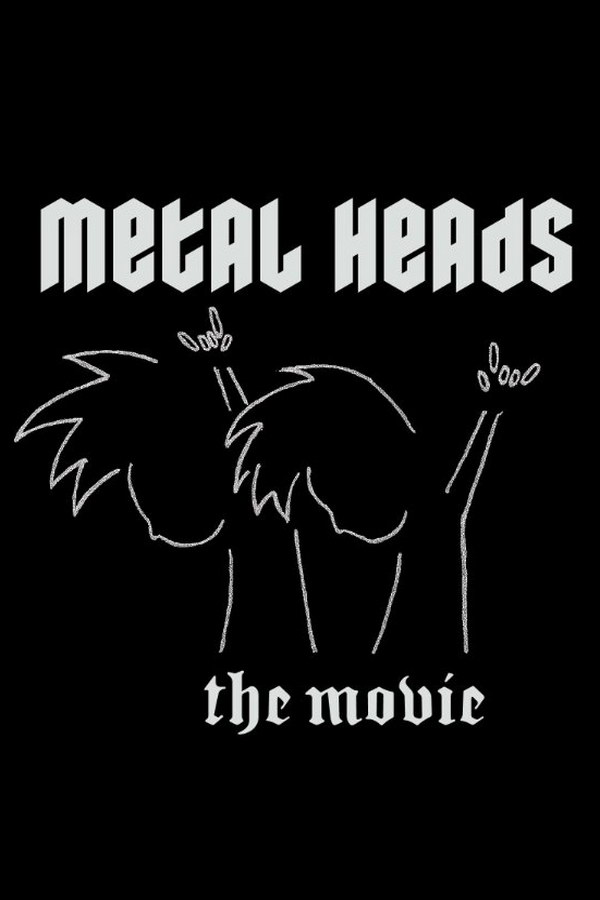
Metal Heads Font
BandMetal Heads is a biographical comedy movie that follows the rise of a heavy metal band from their humble beginnings in a garage to international fame.